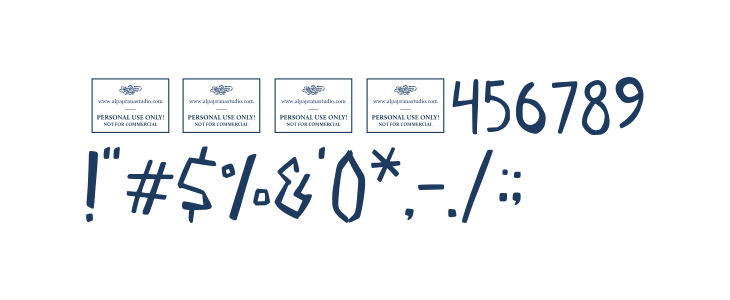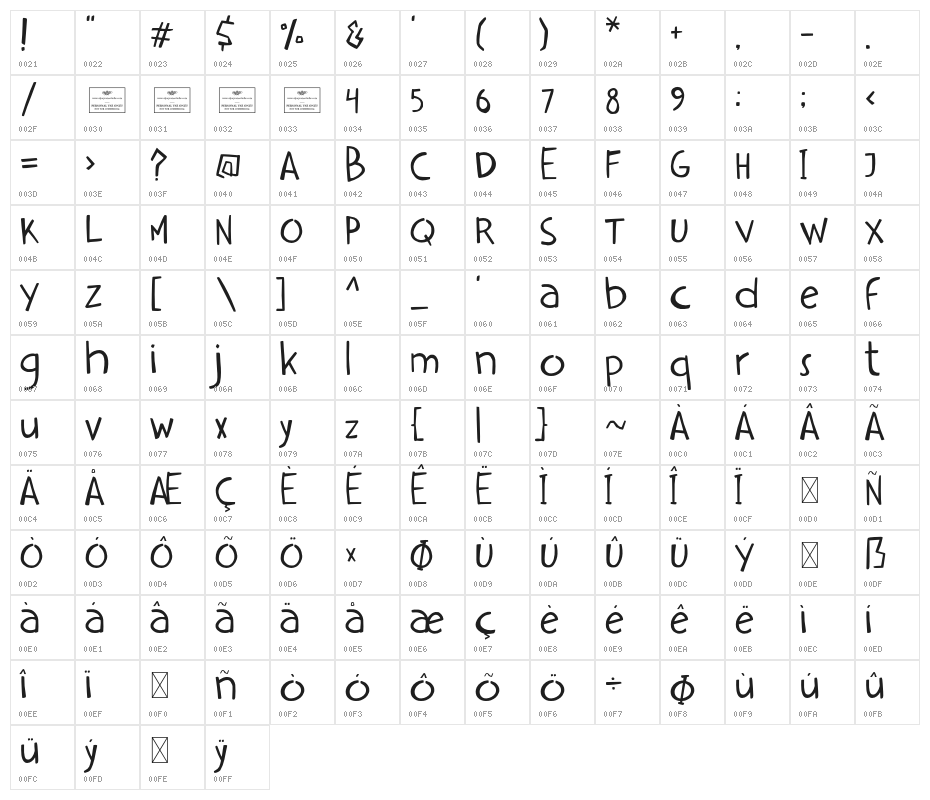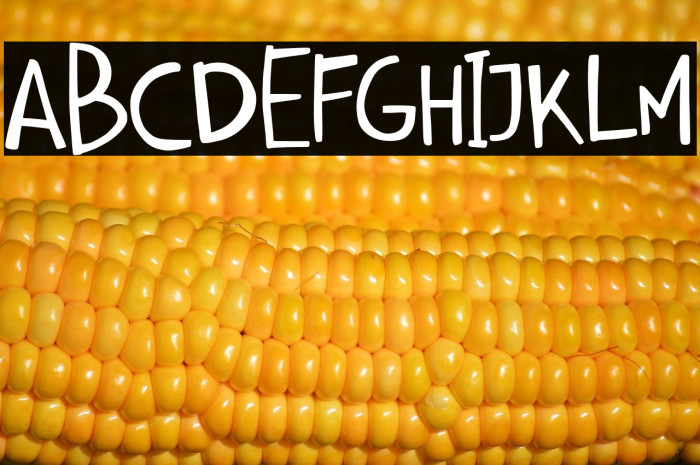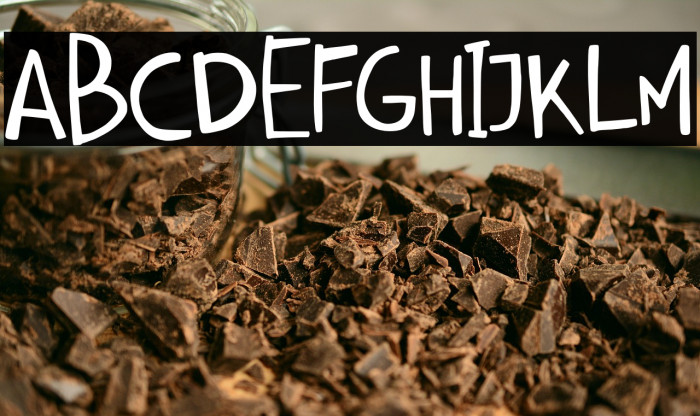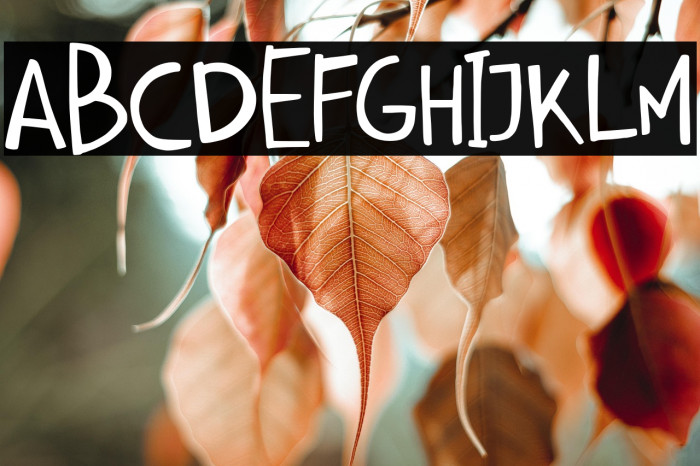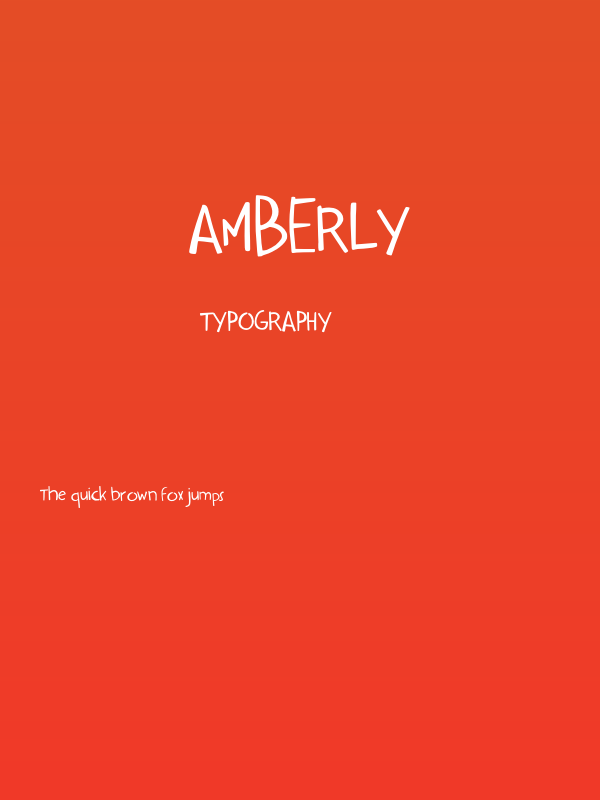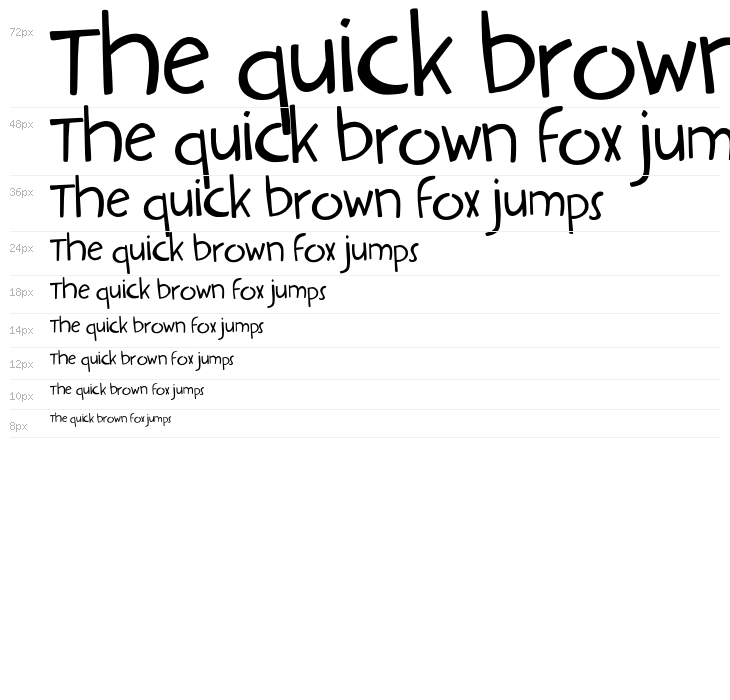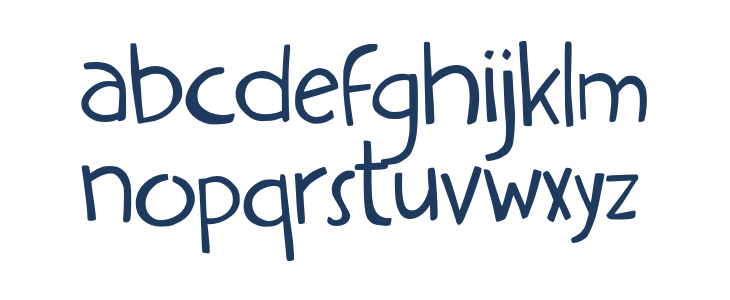
Amberly Font
| Caso d'uso | Headlines, Logos, Creative projects |
| Progetti proposti | Ideal for children's books, greeting cards, playful branding, and creative posters. |